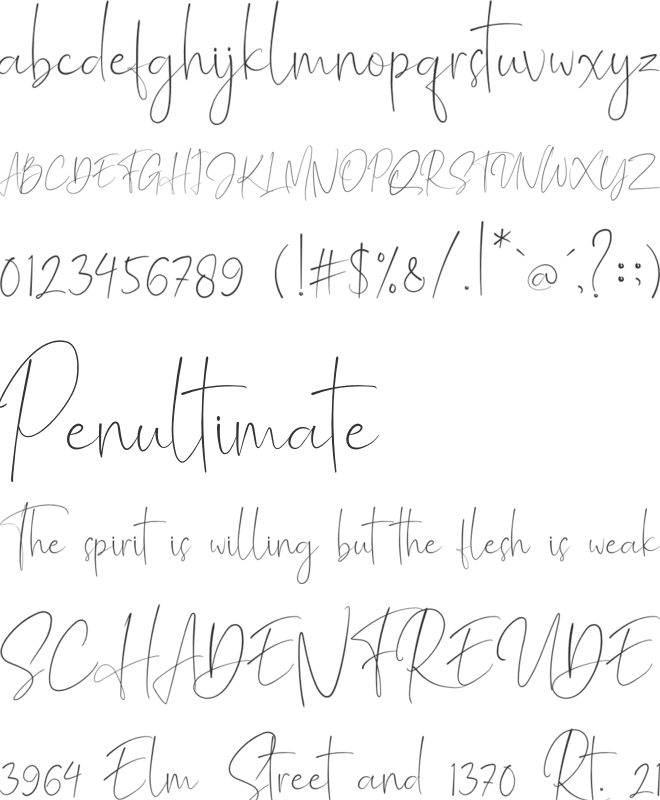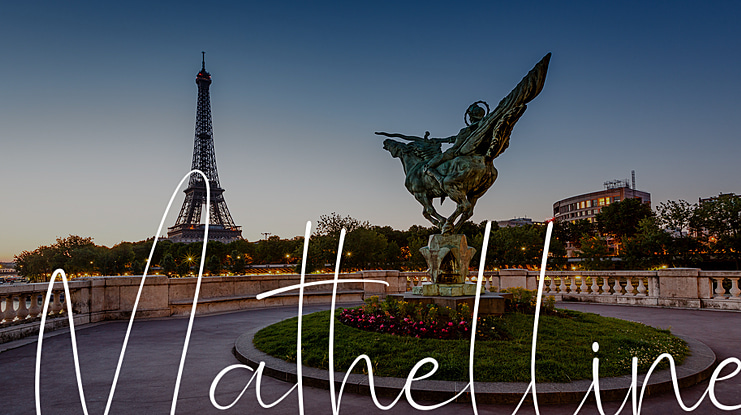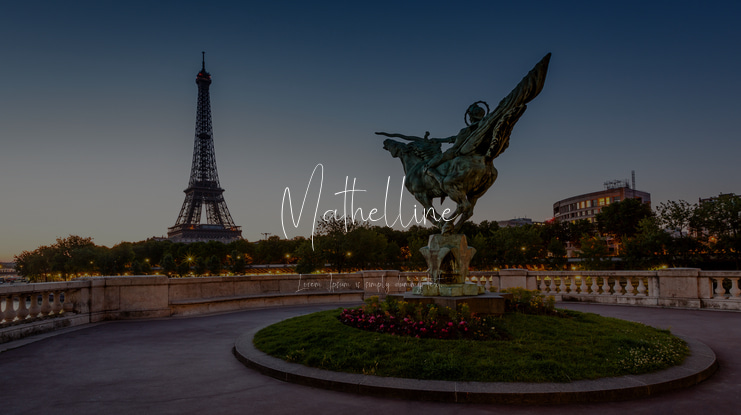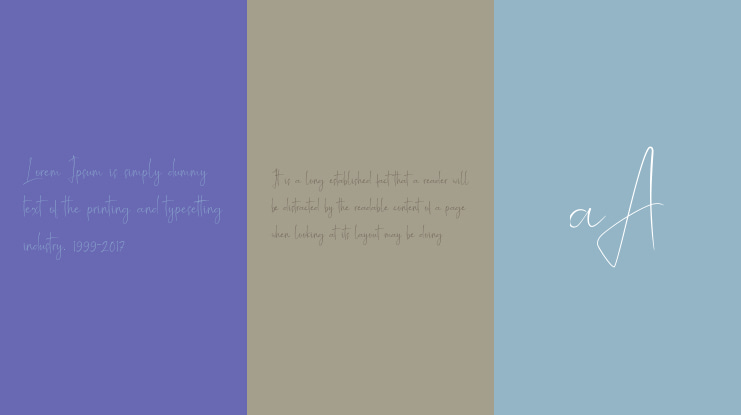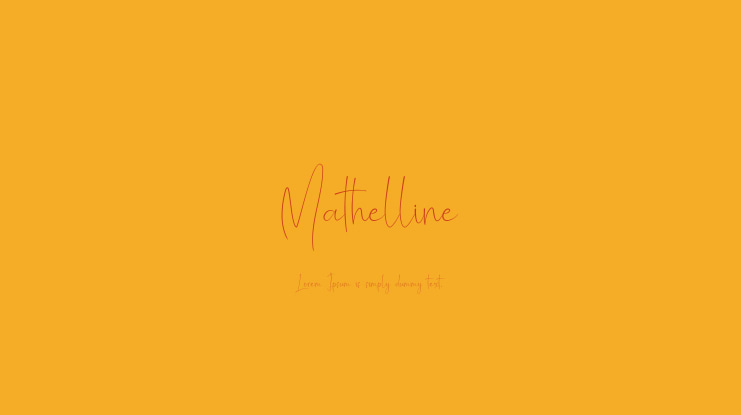
Mathelline Font
Introducing Mathelline is a Classy Script font with 2 style regular and italic. Inspired by luxury and branded stuffs make this font looks classy and awesome in many way to your latest project. Mathelline is perfect for logos & branding, photography, invitation, watermark, advertisements,product designs, stationery, wedding designs,label ,product packaging, special events or anything that need handwritting taste